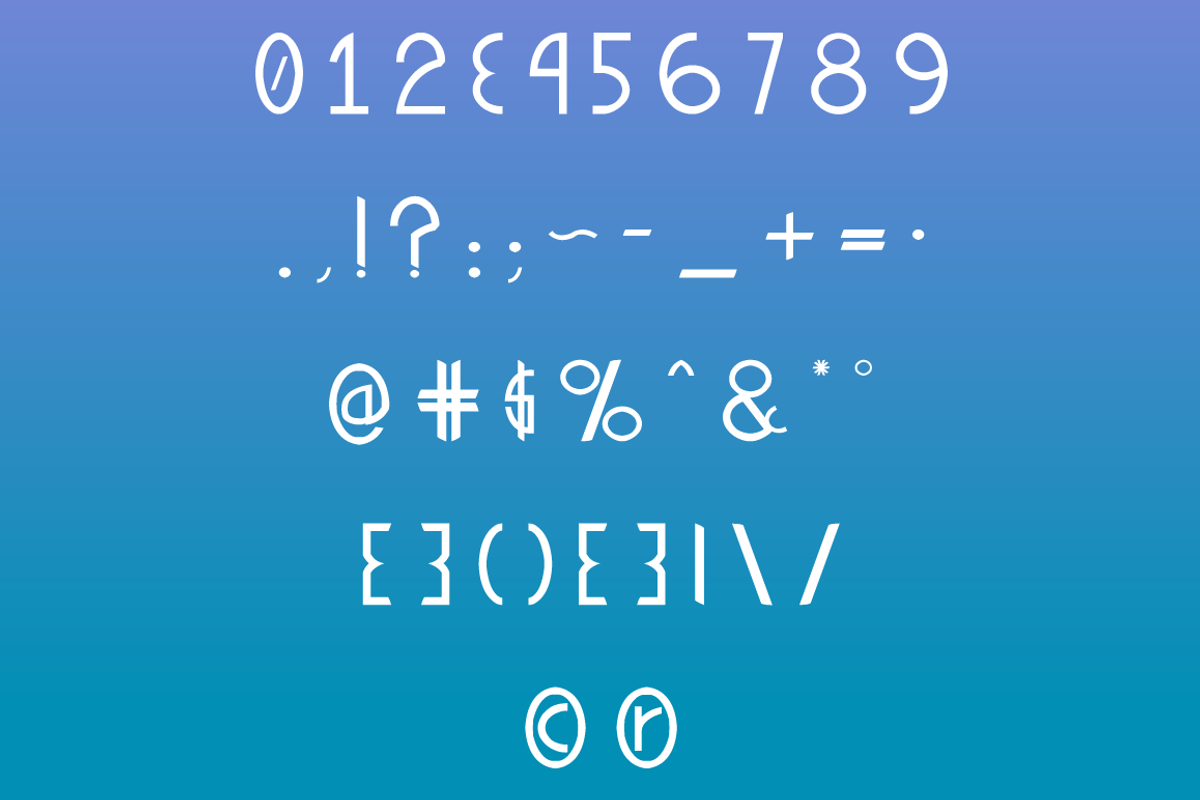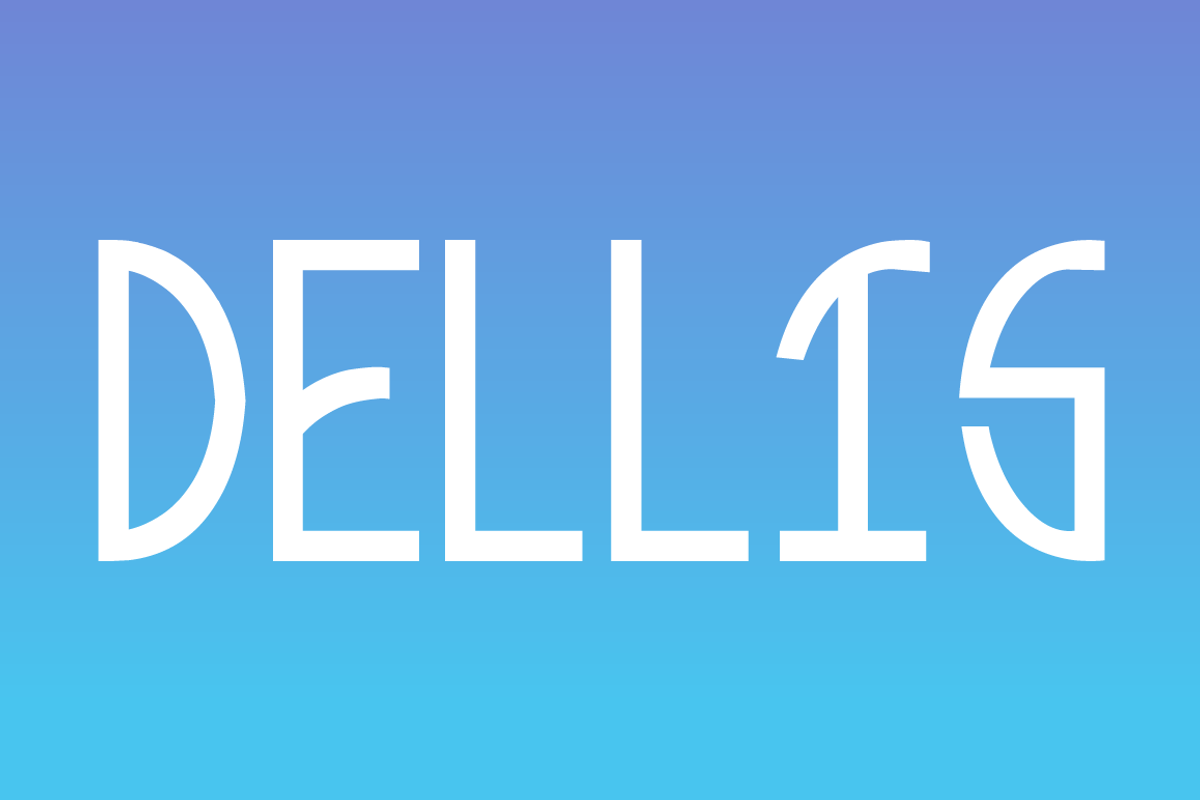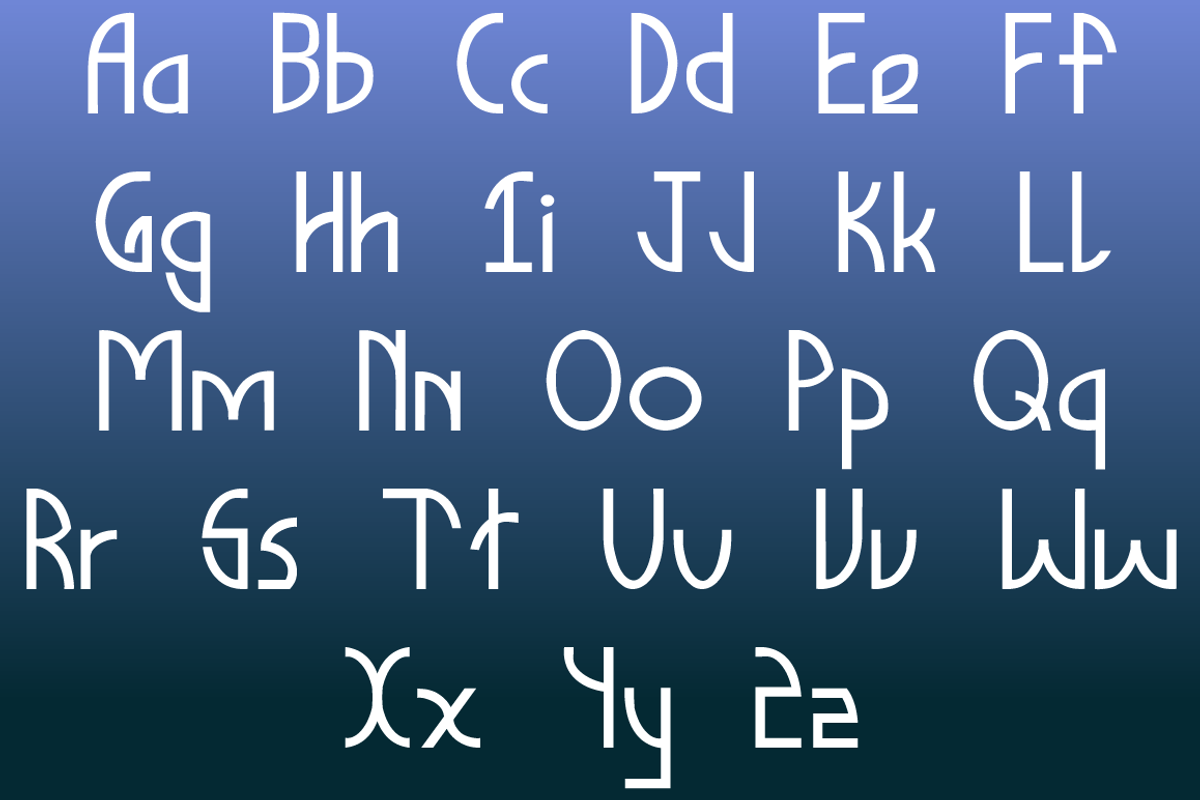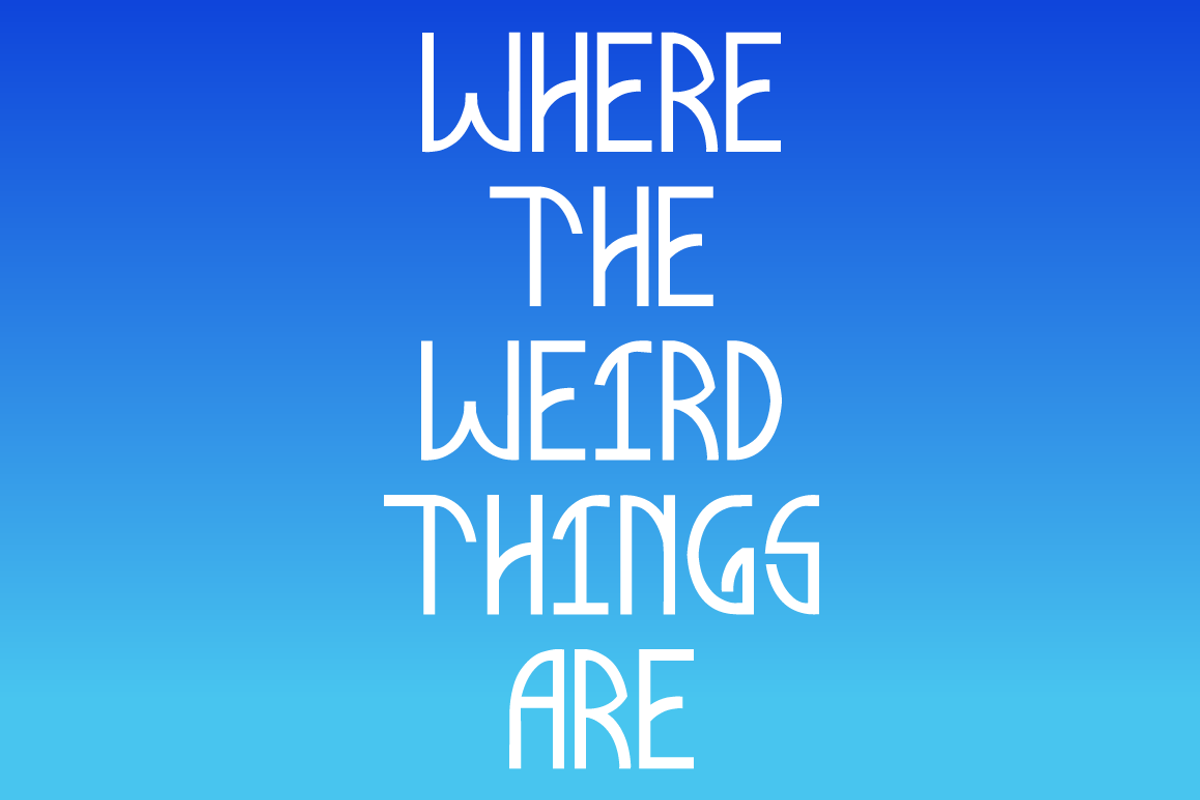
Dellis Typeface
Dellis Typeface by DefayDesigns is a font selected for branding, posters, packaging, typography.
Why Dellis Typeface is worth a look
Dellis Typeface by DefayDesigns fits naturally into Branding, posters, packaging, typography.